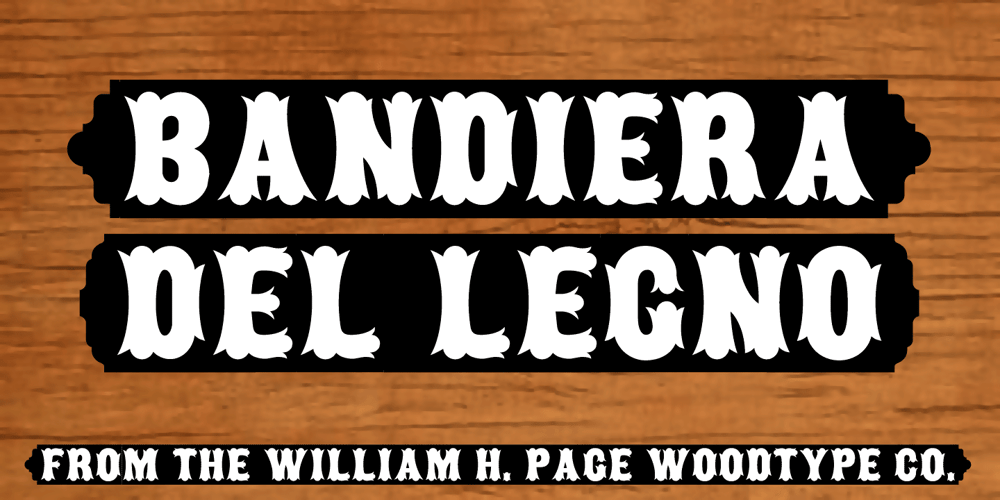
Bandiera Del Legno NF
Bandiera Del Legno NF Font Family was designed by published by Nick’s Fonts. Bandiera Del Legno NF contains 1 styles and family package options. This typeface appeared in the William H. Page Woodtype specimen book as Gothic Tuscan Condensed Reversed—quite a mouthful. Banner elements appear in the brace and bracket positions, and reversed spaces can be found in the underscore and bar positions. Both versions of this font support the Latin 1252, Central European 1250, Turkish 1254 and Baltic 1257 codepages.